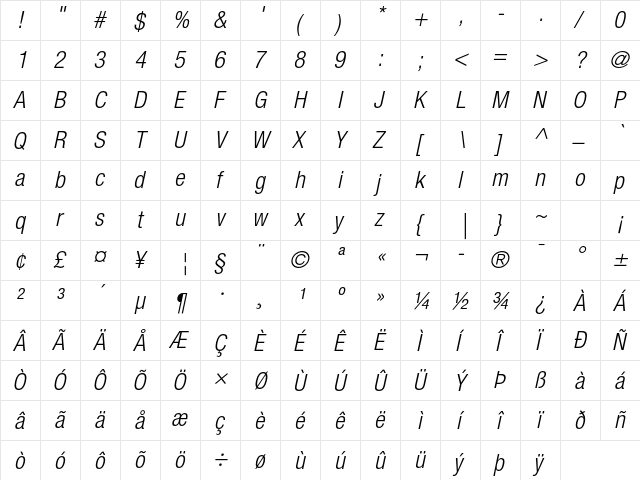
Helvetica Neue LT Std 47 Light Condensed Oblique Font Preview
| Designer | Linotype Staff |
Design Context for Helvetica Neue LT Std Typeface
Helvetica Neue LT Std is a composed and adaptable typeface that performs quietly and consistently across a wide range of design contexts. The slanted form adds forward momentum and visual energy. The delicate stroke weight brings airiness and refinement to layouts. The condensed width makes it efficient for tight spaces without sacrificing legibility.
Pro Tip: Use Helvetica Neue LT Std for emphasis, pull quotes, and subheadings where its slanted energy can add rhythm to the layout.